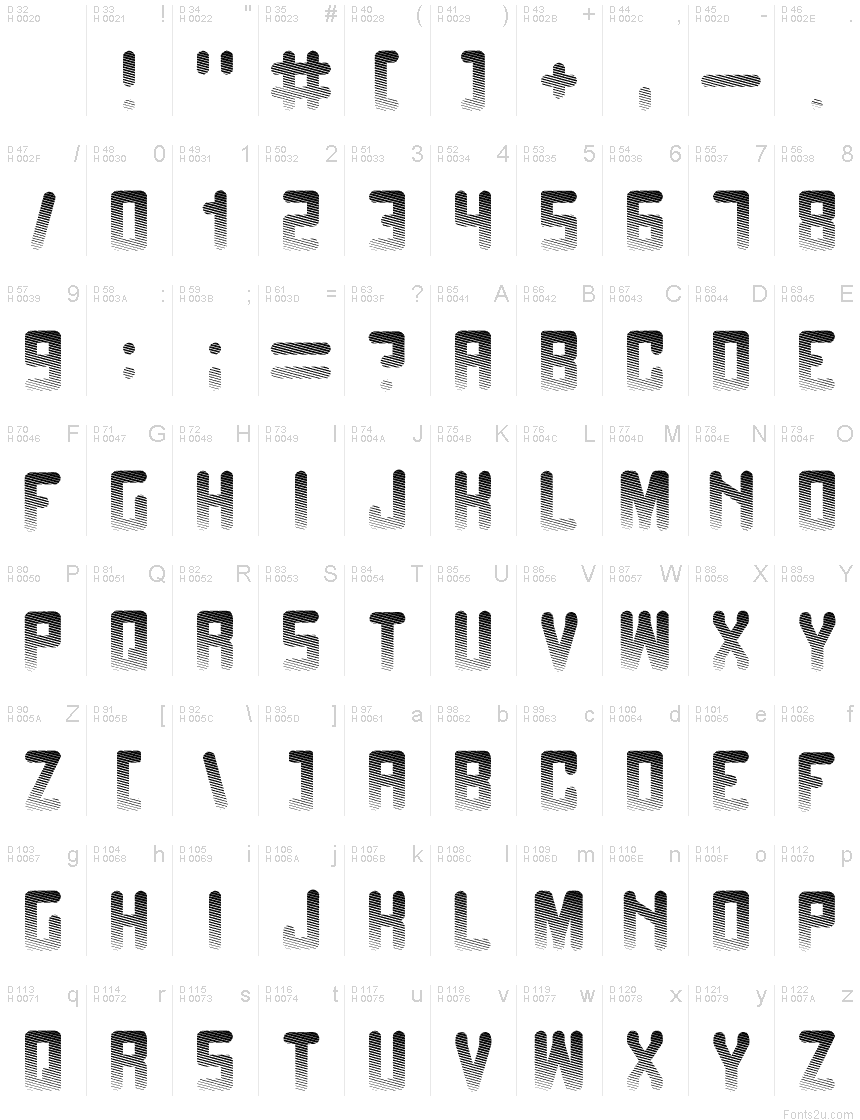
Fade to grey
Fade to Grey font by Jakob Fischer is a free groovy eroded display typeface with letters that look as if they’re dissolving into thin air. Thick, blocky shapes are sliced by tight diagonal lines that gradually fade, creating a gritty motion-blur effect that feels both retro and digital. The texture is bold enough to grab attention, but the rhythm of the stripes keeps it surprisingly readable at larger sizes.
Using Fade to Grey instantly injects a sense of movement into posters, album covers, rave or festival flyers, YouTube thumbnails, merch, and bold social graphics. This free font shines when used big and loud, where the fading stripes can really breathe; try pairing it with a clean geometric sans in smaller text to keep layouts clear and grounded.